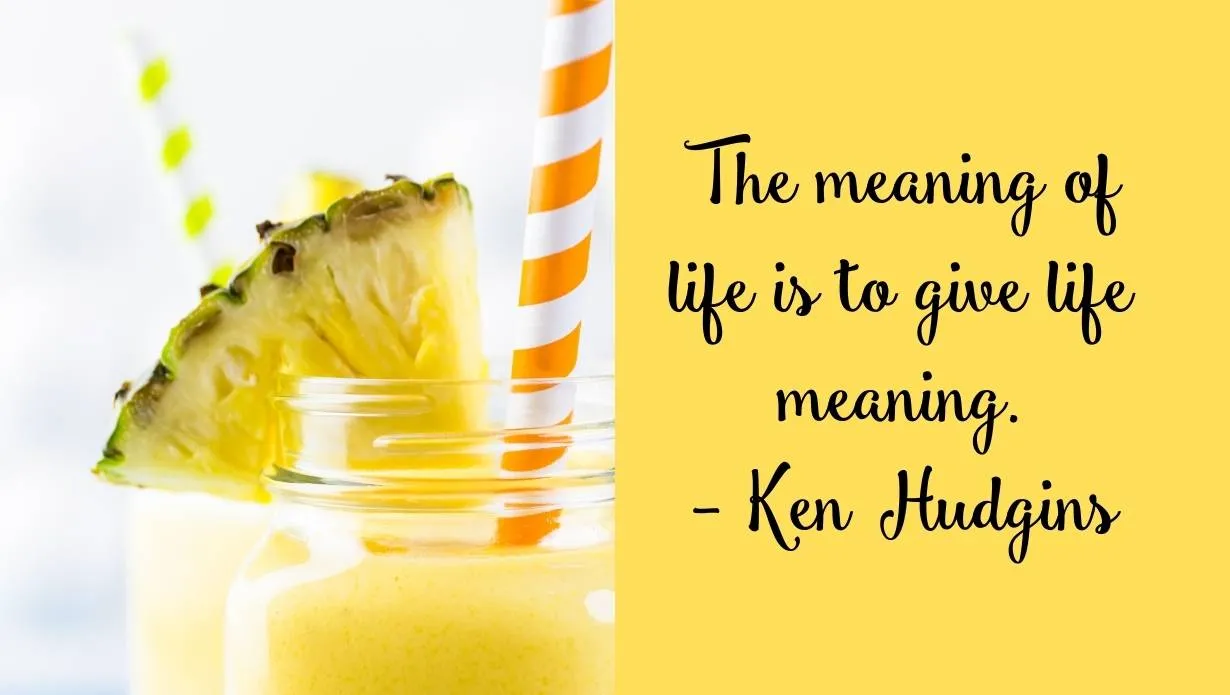
Smoothie Shoppe Font is a beautiful handwritten font with a refreshing and playful feel. This attractive font was developed by Emily Spadoni. This typeface belongs to the Script typeface.
It’s perfect for adding a personal touch to your summertime marketing materials, from social media posts to blog headers. This font is best for different programs like Photoshop, Canva, and others.
This typeface has some special and unique characters like symbols, numerals, and so on. The overall feel of this font family is very happy and playful. Champagne Font is similar to this font family.